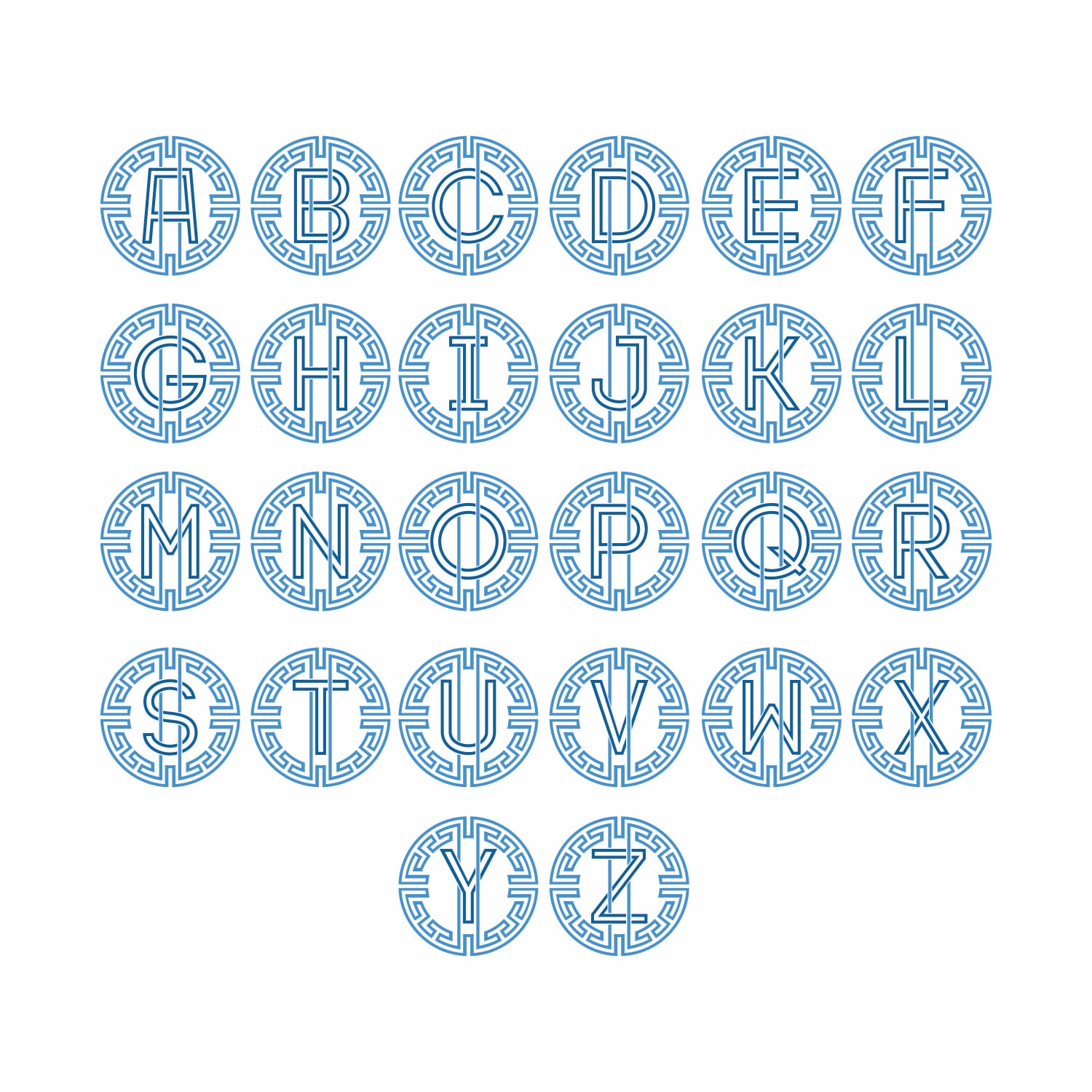
Create Awesome personalized names with this Greek Key Interlocking Medallion Monogram. Featuring bold geometric lettering. This font is perfect for creating custom initials, personalized gifts, logos, wedding designs, and craft projects.
- Greek Key Medallion Personalized Monograms
- Custom Interlocking Initial Designs
Font Features:
- Greek Key Interlocking Medallion Monogram
- Three-Letter Initial Design
- Art Deco Inspired Lettering
- Decorative Diamond Accents